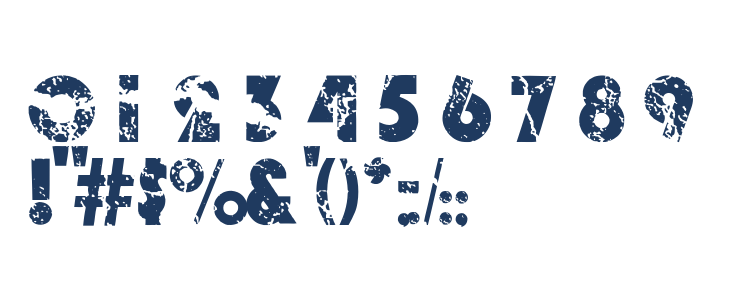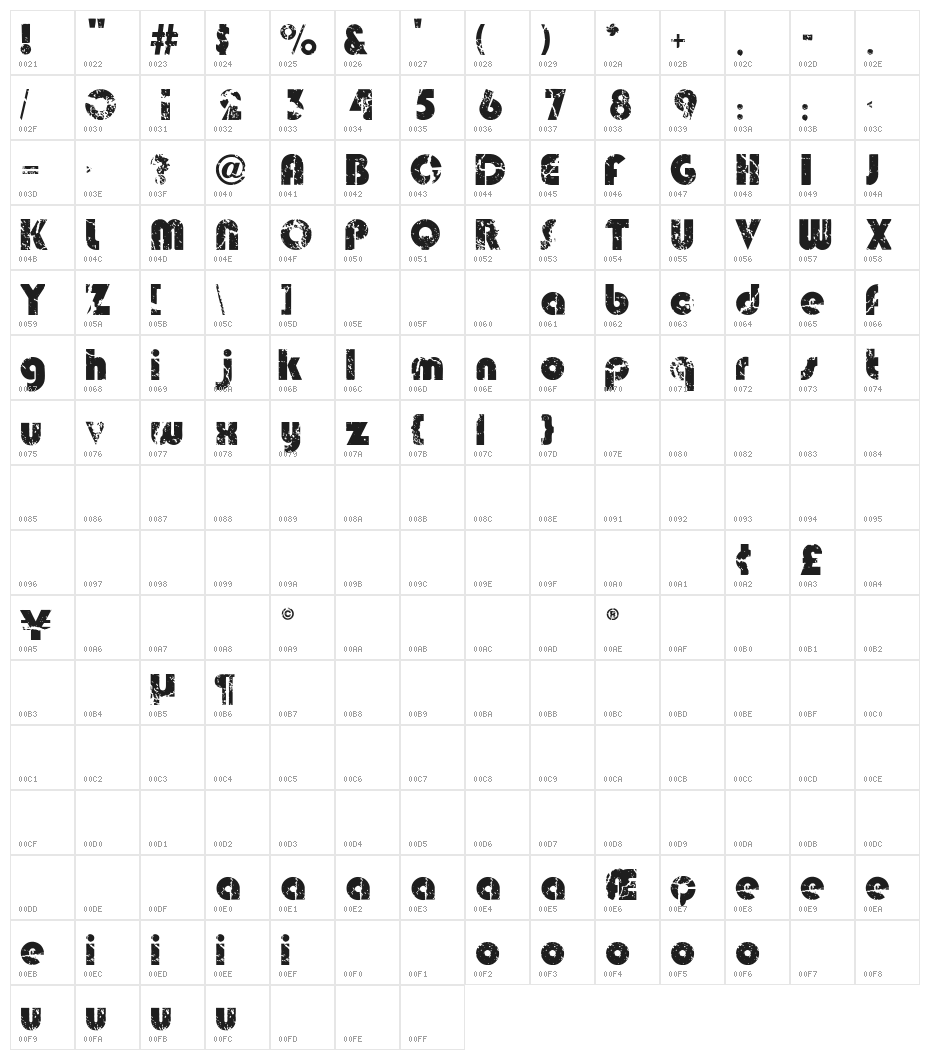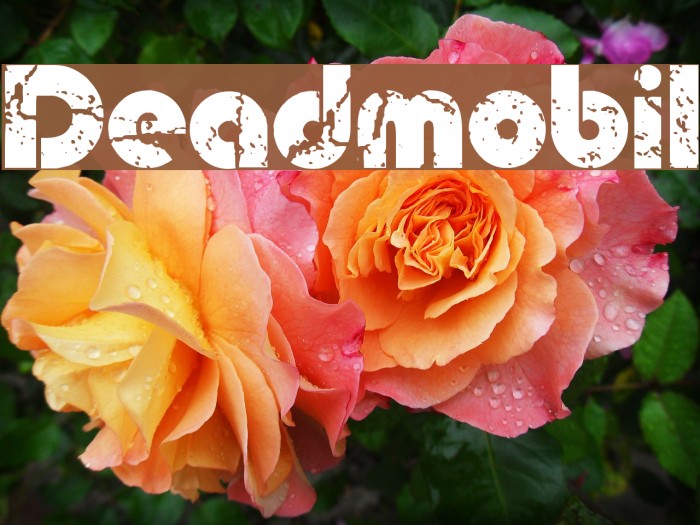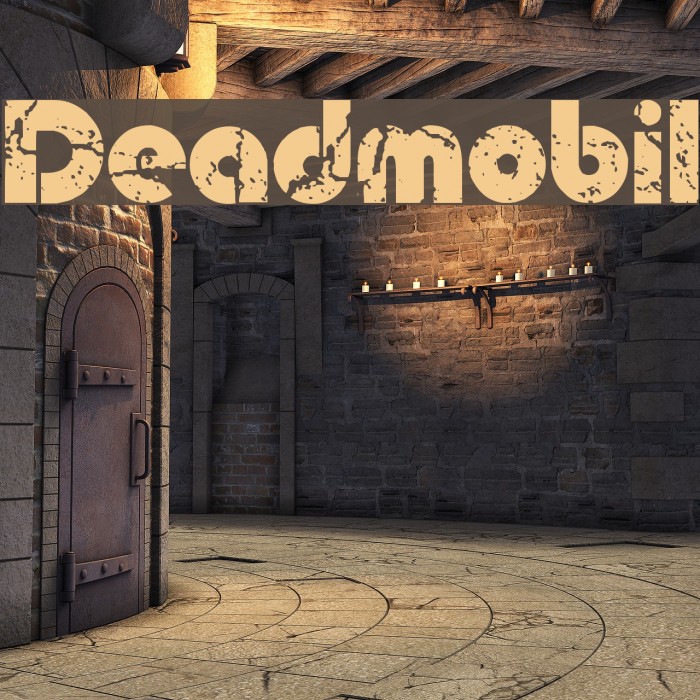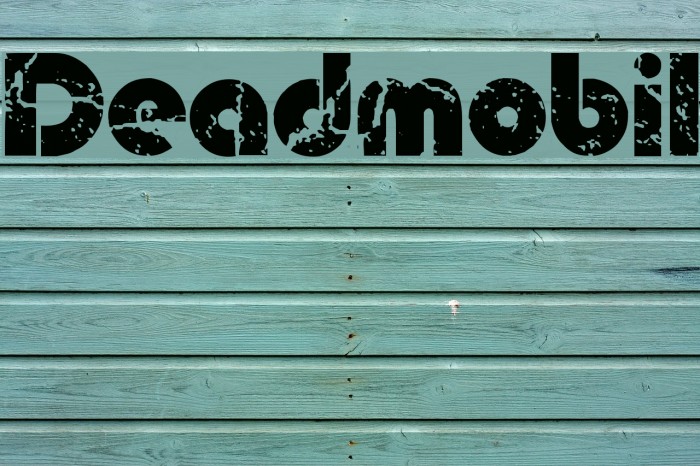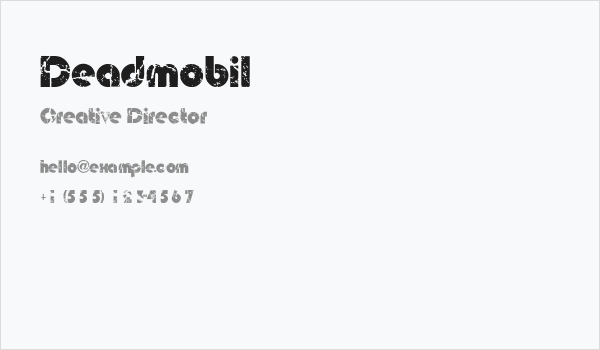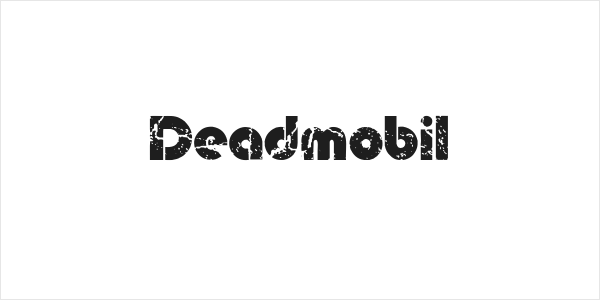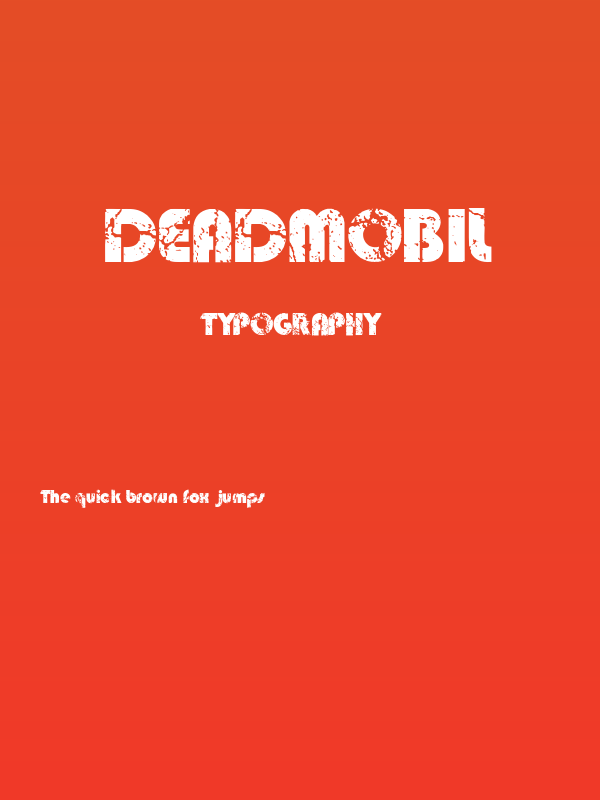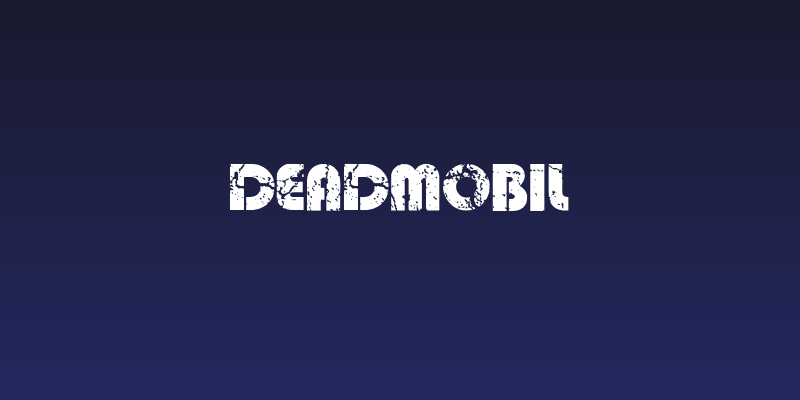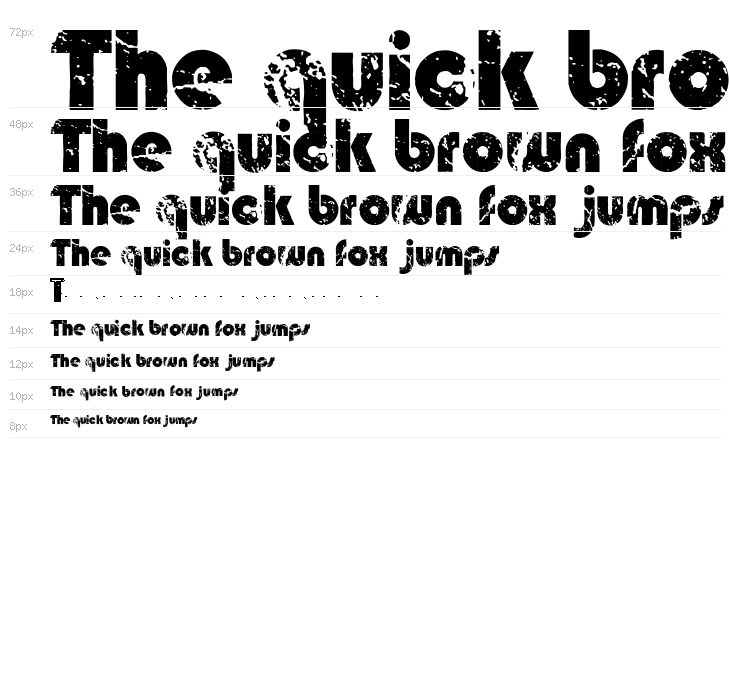
Deadmobil Font
Deadmobil Description
This font features a bold, distressed style with a grunge texture that gives it a worn and rugged appearance. The characters are thick and blocky, with irregular edges and a rough, weathered look. This design creates a sense of age and decay, making it ideal for projects that require a vintage or industrial aesthetic. The uppercase and lowercase letters maintain a consistent style, while the numbers and special characters follow the same distressed theme, ensuring uniformity across all text elements.
Overall StyleVintage
Proposed ProjectsIdeal for posters, album covers, branding for edgy or alternative products, and any design requiring a vintage or industrial feel.